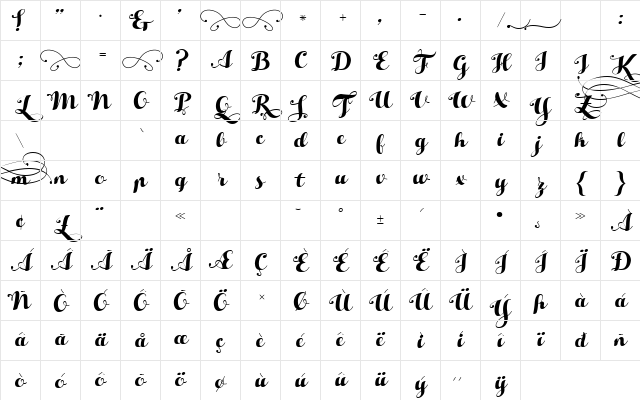
Complete Hello Script Regular glyph index. Displaying only characters natively supported by Hello Script Regular font.
Hello Script flows with the natural rhythm of handwritten lettering, making it ideal for designs that call for warmth and personal expression.
Font Pairing: Combine Hello Script with a simple geometric sans for maximum contrast - the tension between flowing curves and clean structure is a classic typographic pairing.
Pro Tip: Use Hello Script for short runs of text - names, titles, or taglines. Extended body copy in script faces tires the eye quickly.